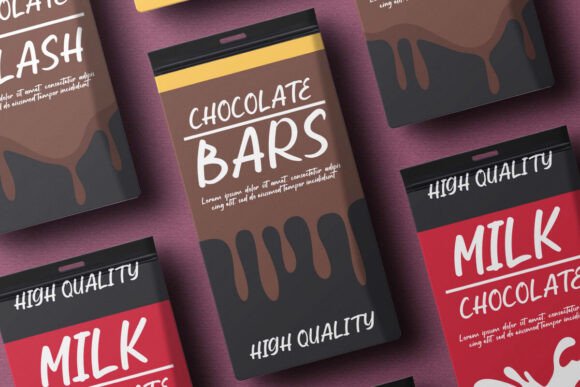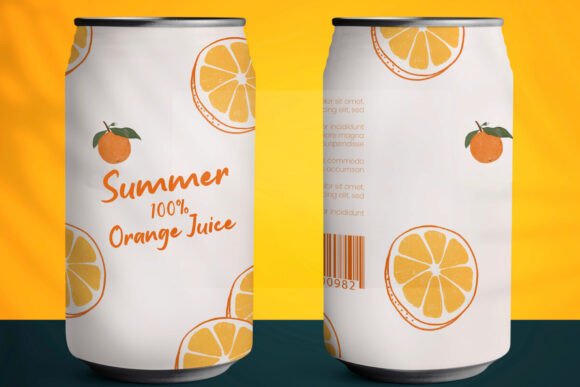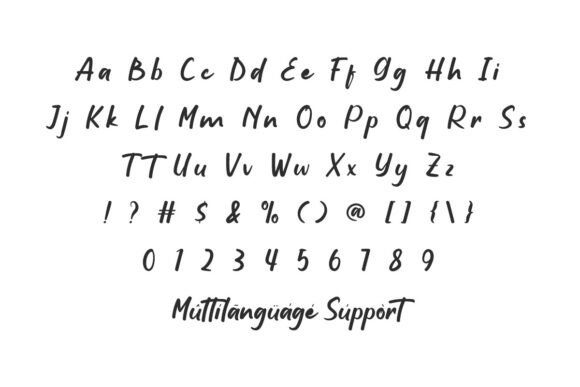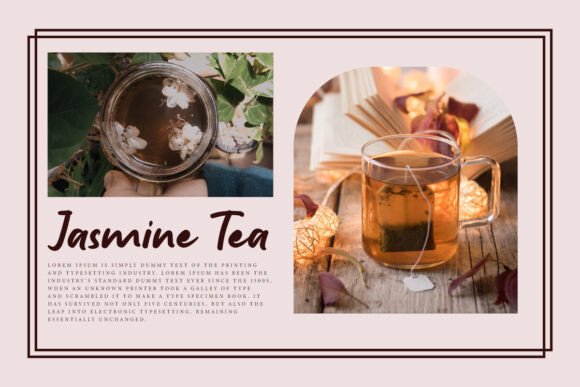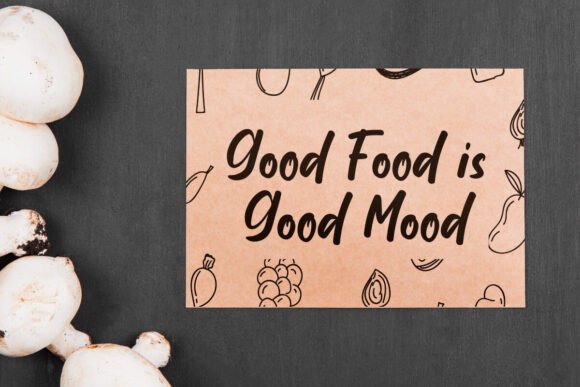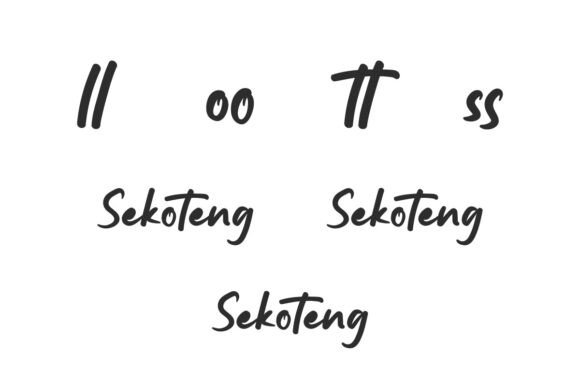
Introduction to Sekoteng Font
Have you ever stared at a blank canvas, trying to spark creativity, only to be met with a sea of blank stares? I know I have. But what if I told you that the perfect spark could be found in the unlikeliest of places – a traditional Indonesian dessert? Enter the Sekoteng Font, a thick brush script font that’s as sweet as the dessert it’s inspired by.
With its simple yet eye-catching style, the Sekoteng Font is a game-changer for designers looking to add a touch of awesomeness to their creative projects. Whether you’re working on an advertisement, a bakery’s branding, or an animated film, this font is sure to bring a high-quality, unique touch that will make your design stand out from the crowd.
Key Features of Sekoteng Font
- Designed with a focus on aesthetics, making it a great choice for designers seeking a distinctive look.
Honest Review: Sekoteng Font
I recently stumbled upon the Sekoteng Font and I must say it’s a hidden gem. This font is perfect for creative projects that require a unique touch.
- High quality and detailed design
✨ I love the modern and elegant feel of the Sekoteng Font. It’s a versatile font that can be used in a variety of contexts, from logos to brochures.
- ⚠️ Limited character set, which may not be suitable for extended text
- ⚠️ Not ideal for body text, as it may be difficult to read in smaller font sizes
Overall, I’m impressed with the Sekoteng Font. While it has its limitations, it’s a great resource for designers who need a unique and high-quality font for their creative projects.
The Sekoteng Font is a versatile and high-quality design resource perfect for various creative projects. Its unique style and transparent background make it an excellent choice for designers seeking a distinct look.
Tips for Getting the Most Out of the Sekoteng Font
To maximize the potential of the Sekoteng Font, experiment with different font sizes, colors, and combinations. Use it as a title font or accent font to add visual interest to your designs.
The Sekoteng Font is suitable for a variety of projects, including:
- Graphic design for social media and websites
- Print materials, such as business cards and brochures
Can I customize the Sekoteng Font to fit my design needs?
Yes, the Sekoteng Font is fully editable, allowing you to customize its style and layout to suit your creative project’s requirements. You can use font editing software or design tools to modify the font’s characteristics, such as font size, color, and transparency, to create a unique look for your design. Additionally, you can use the font with a transparent background to achieve a more subtle and refined appearance.